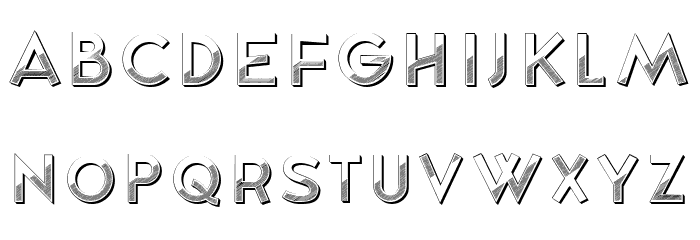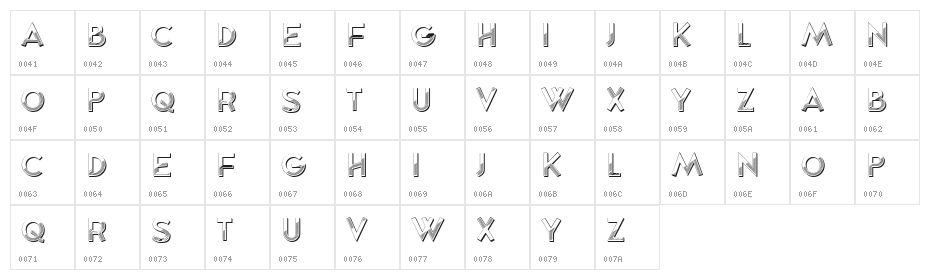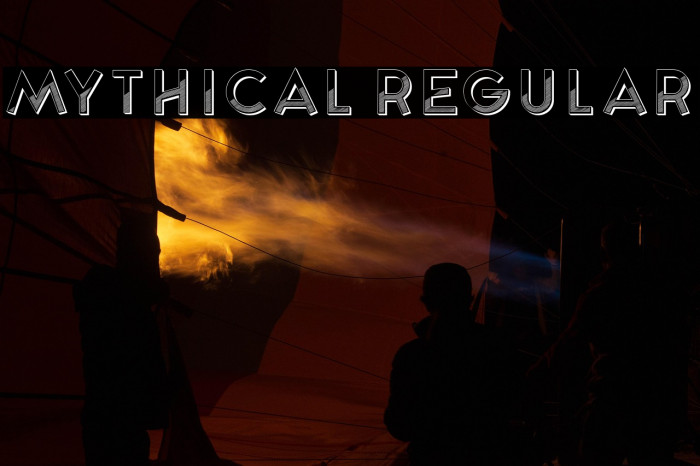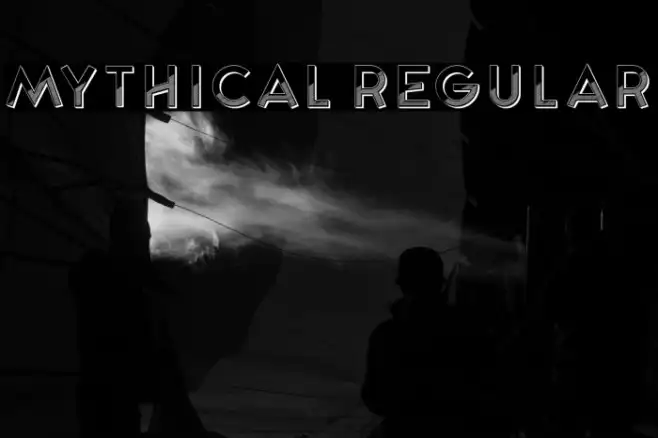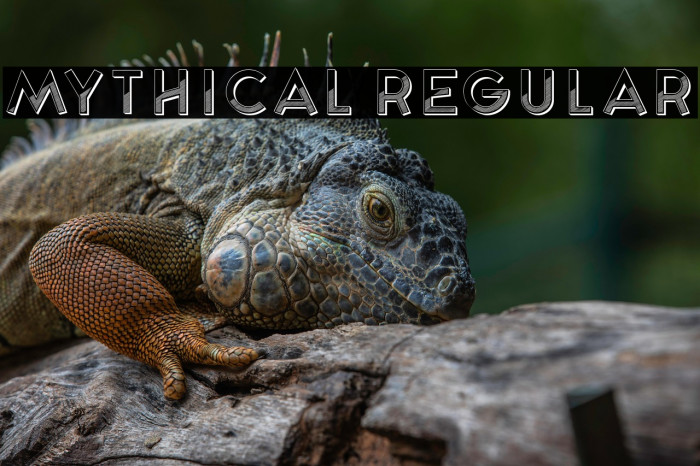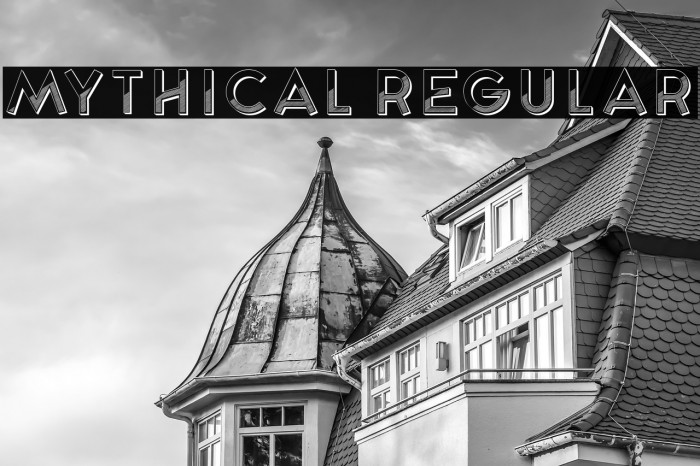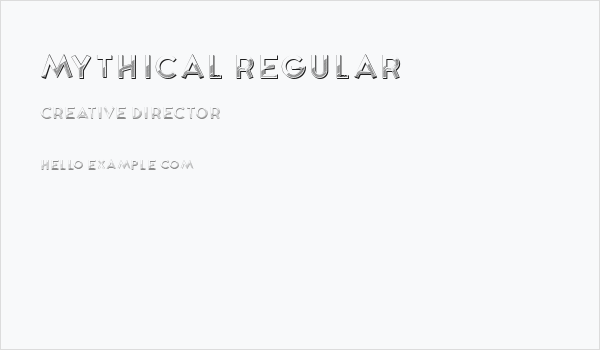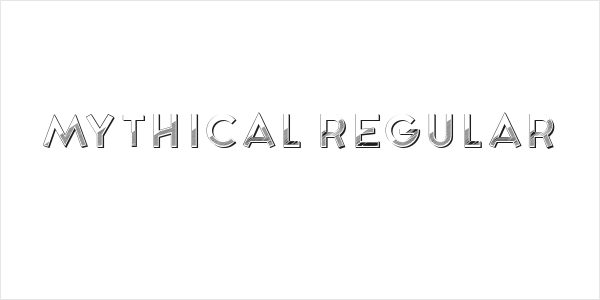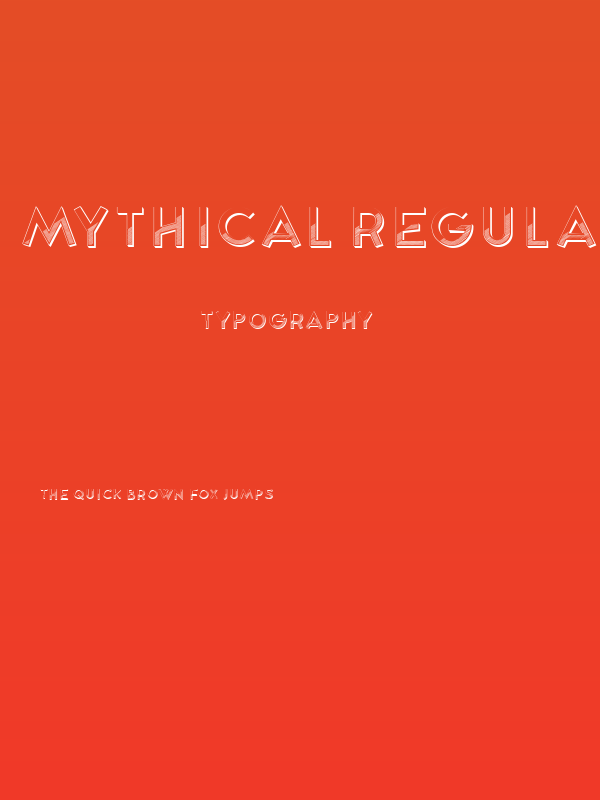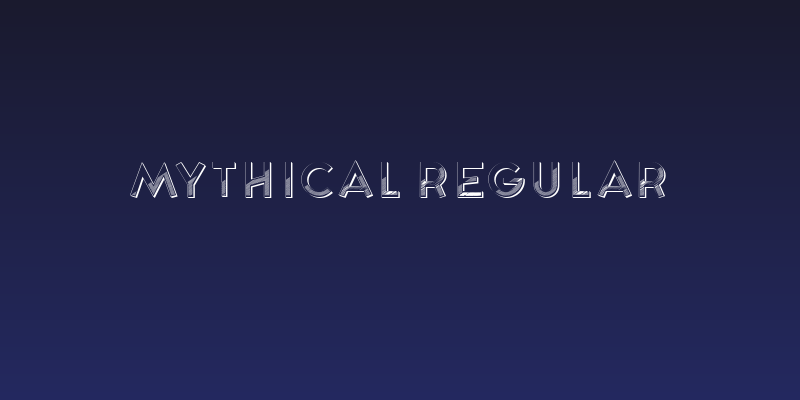
Mythical Regular Font
Mythical Regular Description
This font features a bold and striking design with a three-dimensional effect, giving each letter a sense of depth and shadow. The uppercase letters are crafted with clean, geometric lines, creating a modern and sophisticated appearance. The font's unique style is enhanced by its intricate detailing, which adds a touch of elegance and complexity. The overall look is both contemporary and timeless, making it suitable for a variety of design projects.